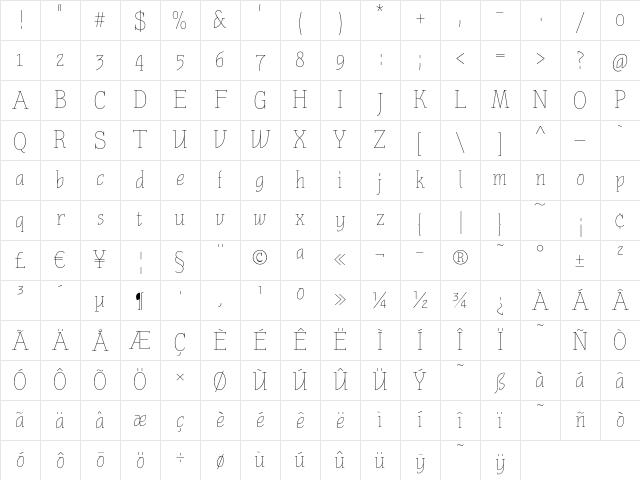
Complete Nautik Extralight glyph index. Displaying only characters natively supported by Nautik Extralight font.
Nautik is a composed and adaptable typeface that performs quietly and consistently across a wide range of design contexts. Its slender proportions lend an understated elegance to any composition.